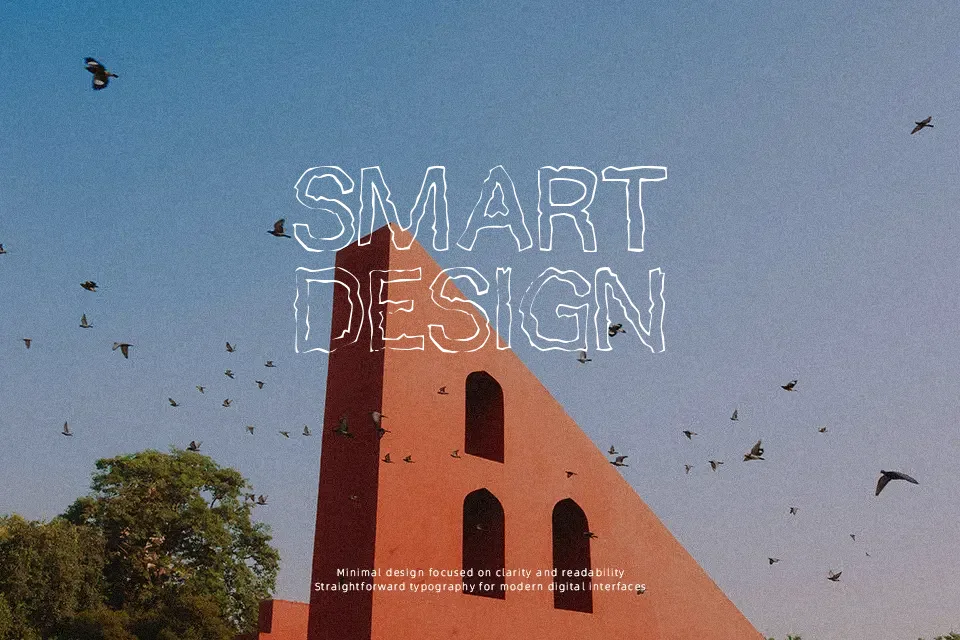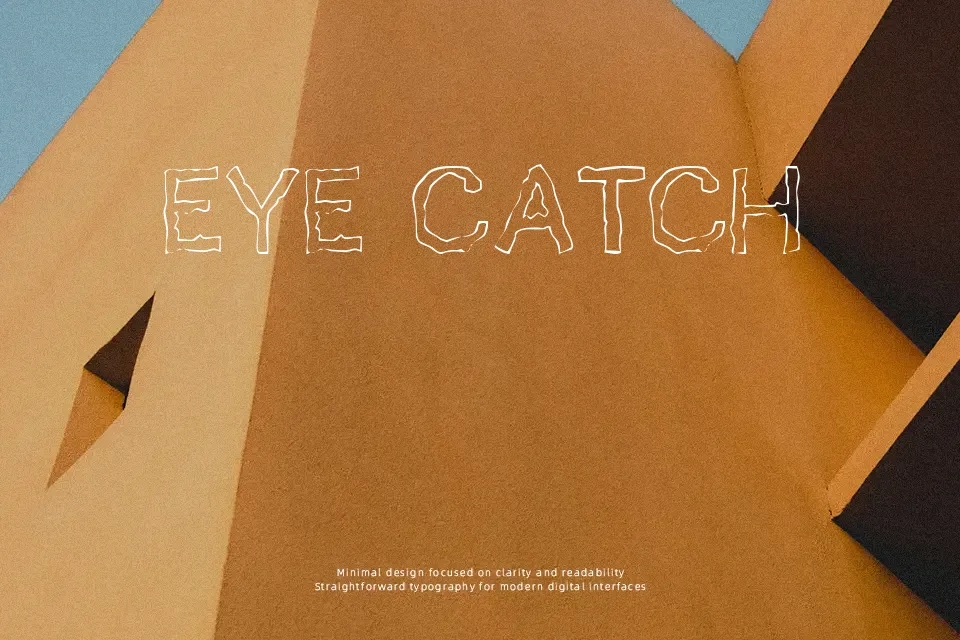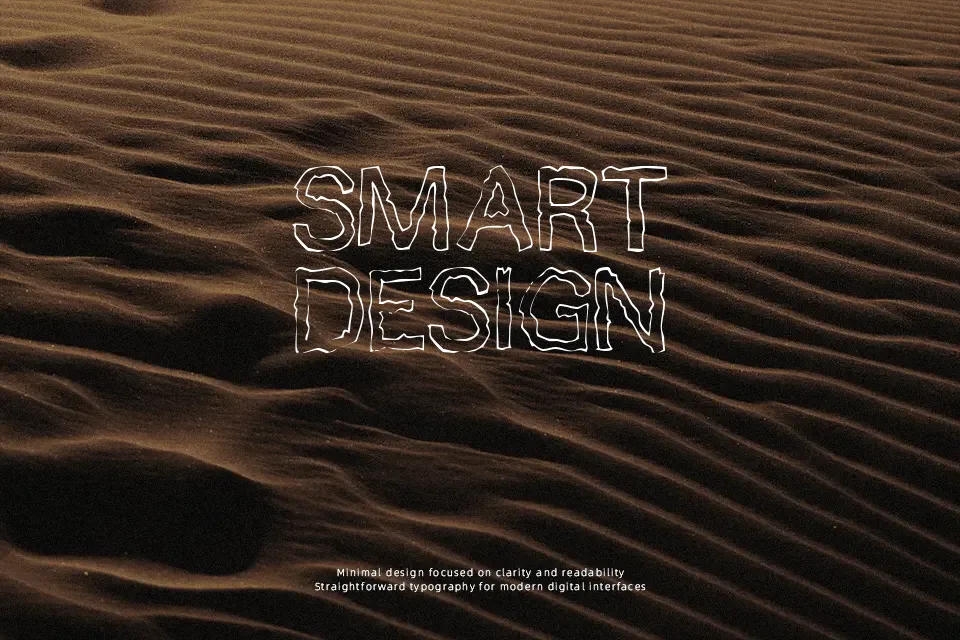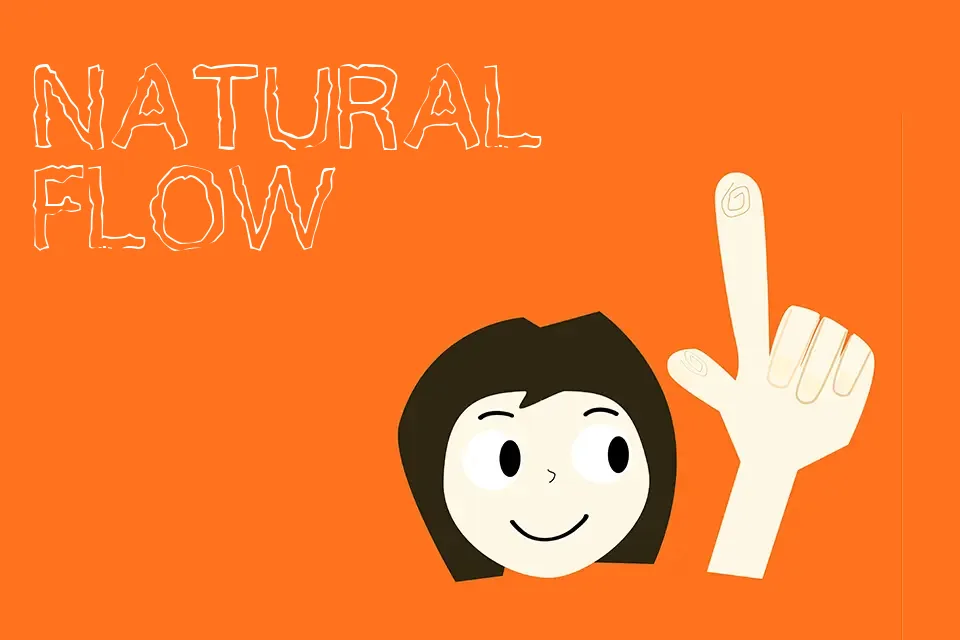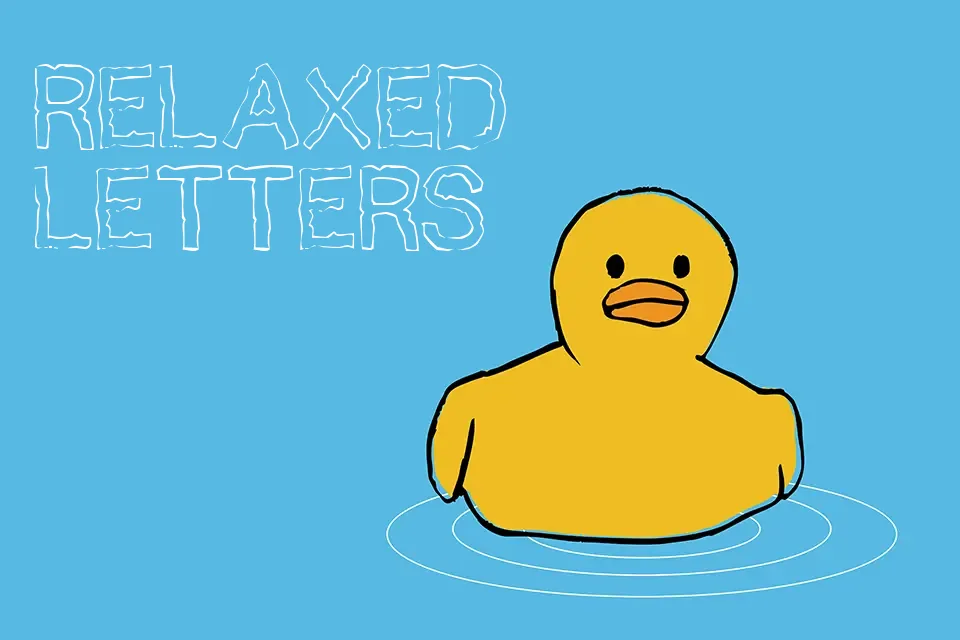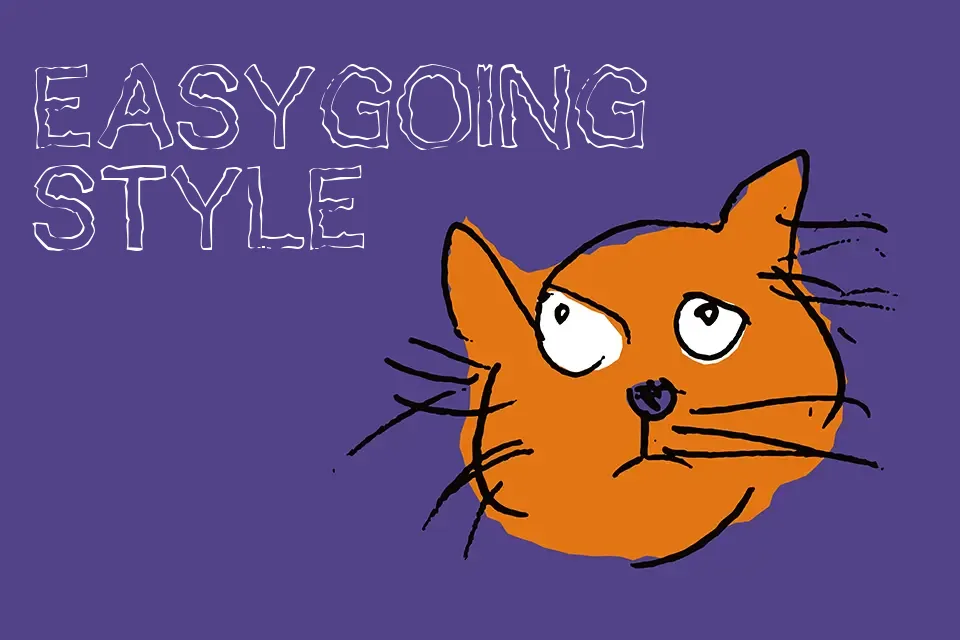
10 Minutes Font
10 Minutes Font is a free handwritten display typeface created by Jakob Fischer, the Danish designer behind the well-known PizzaDude.dk foundry. True to Jakob Fischer’s signature style — inspired by comics, graffiti, and playful everyday lettering — 10 Minutes features loose, irregular letterforms that feel as though they were dashed off quickly by hand, giving the font its appropriately spontaneous name.
The characters carry a natural sense of movement and imperfection, with slightly uneven baselines, casual stroke widths, and organic curves that set it apart from polished script or formal calligraphy fonts. This raw, energetic quality makes it especially effective at large display sizes — ideal for posters, event flyers, social media graphics, or editorial headlines where a human, handcrafted touch is desired.
Its informal tone suits creative projects targeting younger audiences or casual, friendly brands. Whether used for music promotions, gaming visuals, kids’ content, or Halloween-themed designs, 10 Minutes delivers a warm, spontaneous personality. The font supports standard Latin characters, making it accessible for most English-language design work. Note that this font is licensed for personal use only; a commercial license requires contacting the author directly.